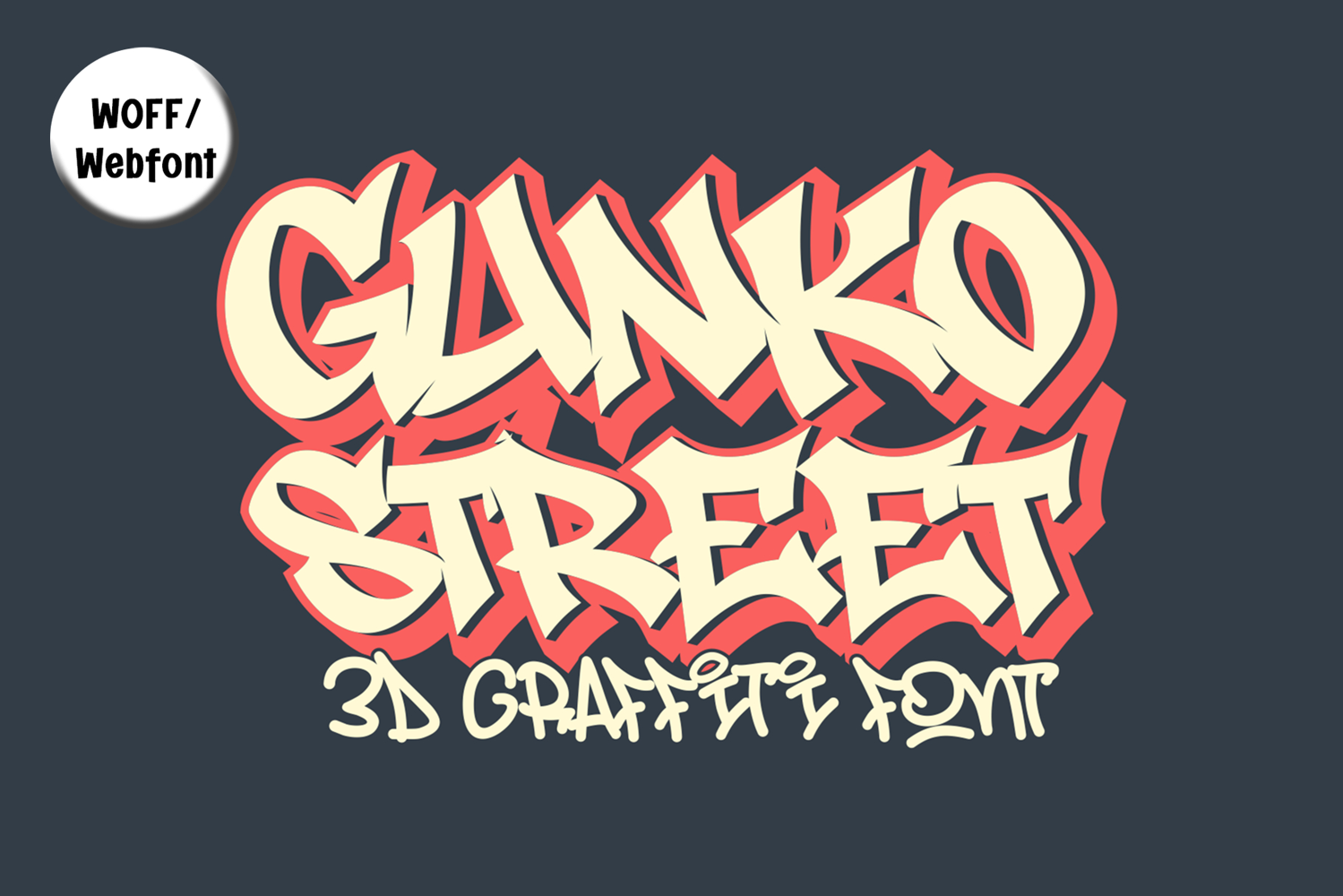
Gunko Street | Bold 3D Graffiti Webfont WOFF
Gunko Street is a powerful 3D graffiti webfont designed for projects that demand bold street-inspired visuals in the digital space. Its sharp letterforms and layered depth effect make it ideal for websites, online stores, and digital branding that aim to capture the essence of urban culture.
This webfont ensures sharp, high-quality rendering across all devices, making your text pop with a visually dynamic presence. Perfect for creative agencies, musicians, streetwear brands, and anyone who wants their online visuals to exude energy and style.